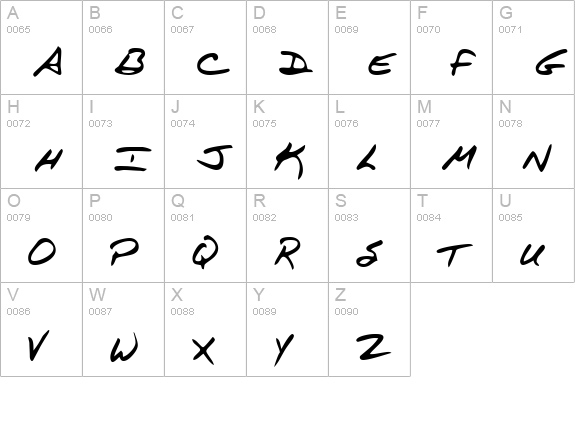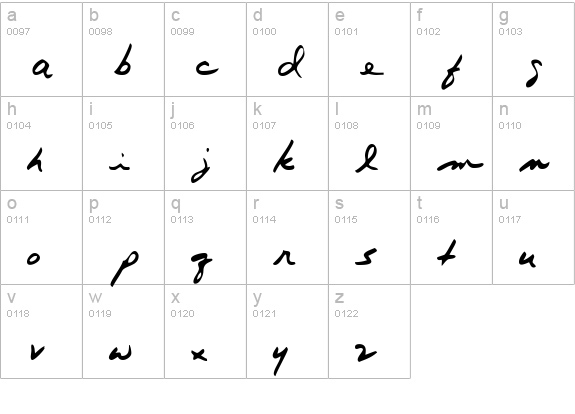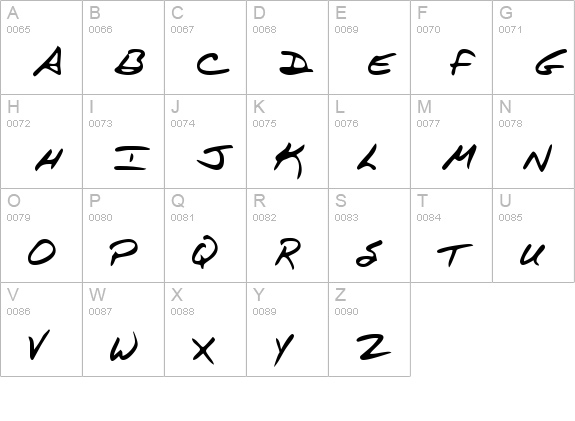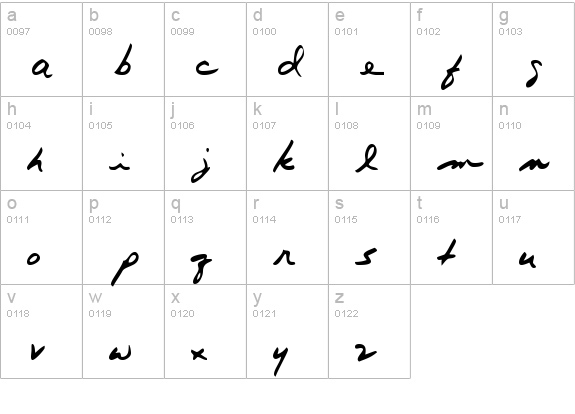
TerrysHand font is a whimsical and charming typeface that brings a touch of playfulness to any design project. With its unique hand-drawn style, this font adds a personal and artistic feel to both digital and print materials. Whether you are creating invitations, posters, or greeting cards, TerrysHand font is sure to captivate your audience with its delightful and expressive letterforms. This font features a wide range of characters, including uppercase and lowercase letters, numbers, punctuation marks, and special symbols. Each letter has been carefully crafted to maintain a consistent and cohesive look, making TerrysHand font the perfect choice for creating eye-catching headlines and titles. One of the best features of TerrysHand font is that it is available for free. You can easily download this font from FontsMarket.com, a trusted source for high-quality fonts. This means that you can use TerrysHand font in your personal and commercial projects without any restrictions or limitations. It's a great opportunity to enhance your designs with a beautiful and playful font, without breaking the bank. So why wait? Give your designs a touch of whimsy and download TerrysHand font today. Let your creativity flourish with this freely available typeface that is sure to make a lasting impression.